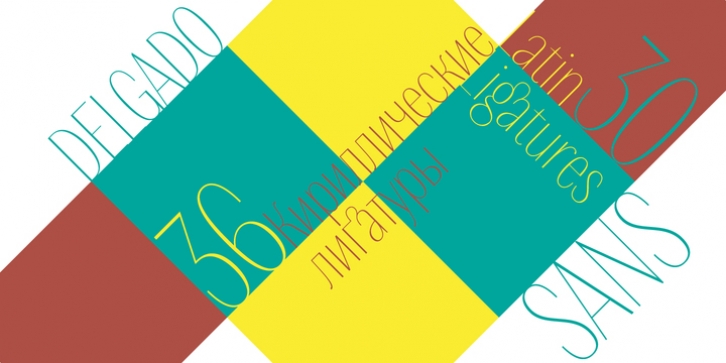
Delgado Sans was designed by Roman Shchyukin and published by Gaslight. Delgado Sans contains 1 style.
Delgado Sans is a logical extension of Delgado. Not only were the serif removed, some glyphs were updated. Delgado Sans is strong, elegant and playful and very good for titles, fashion situation, posters etc... Numerous ligatures vary your design.